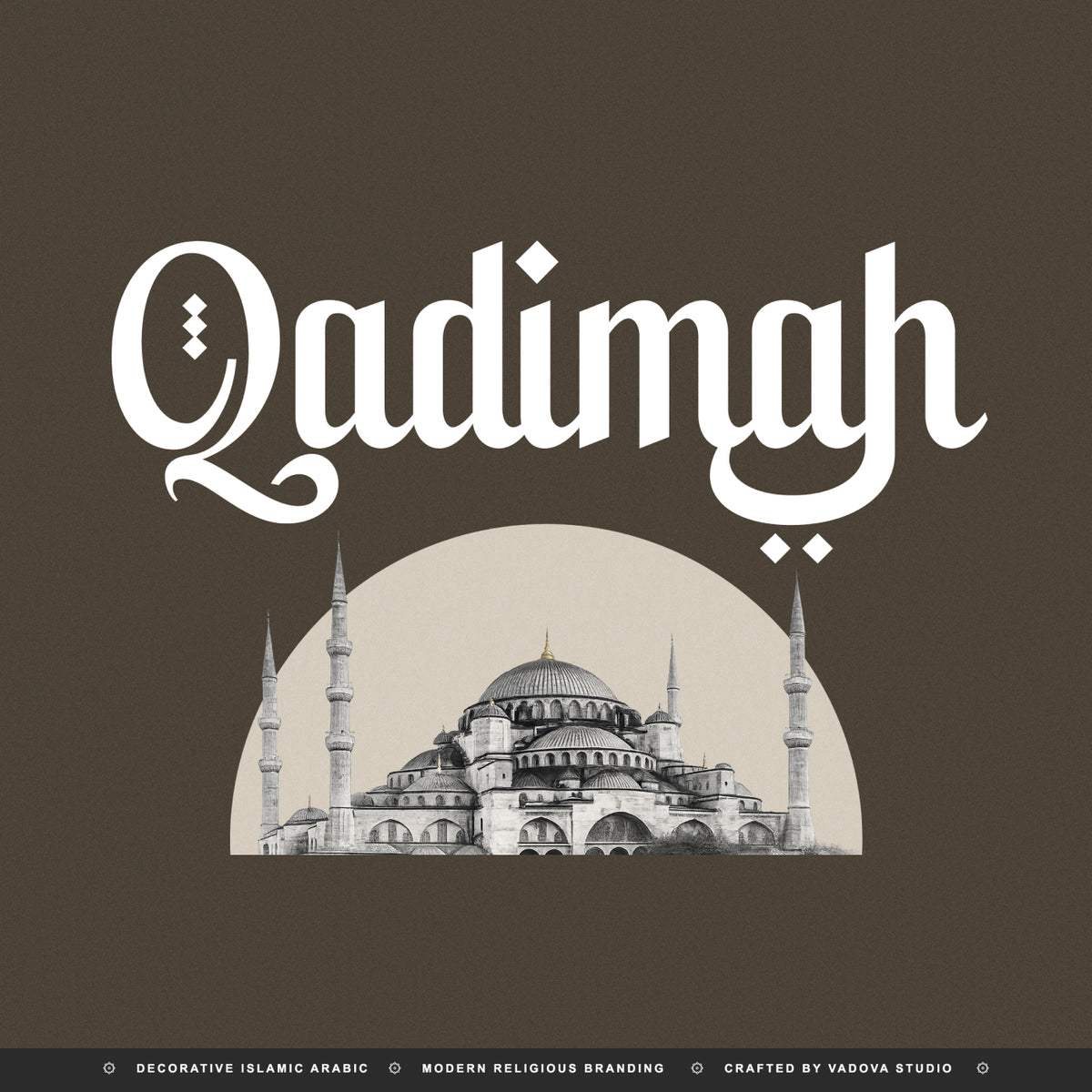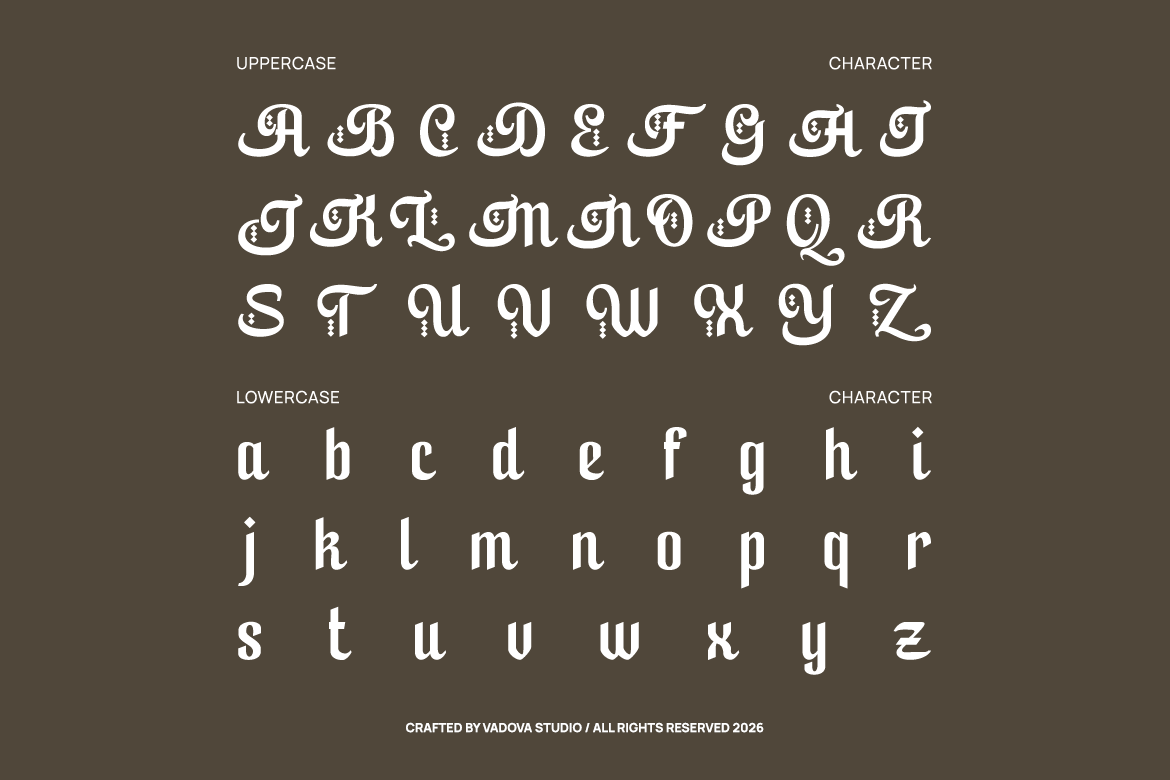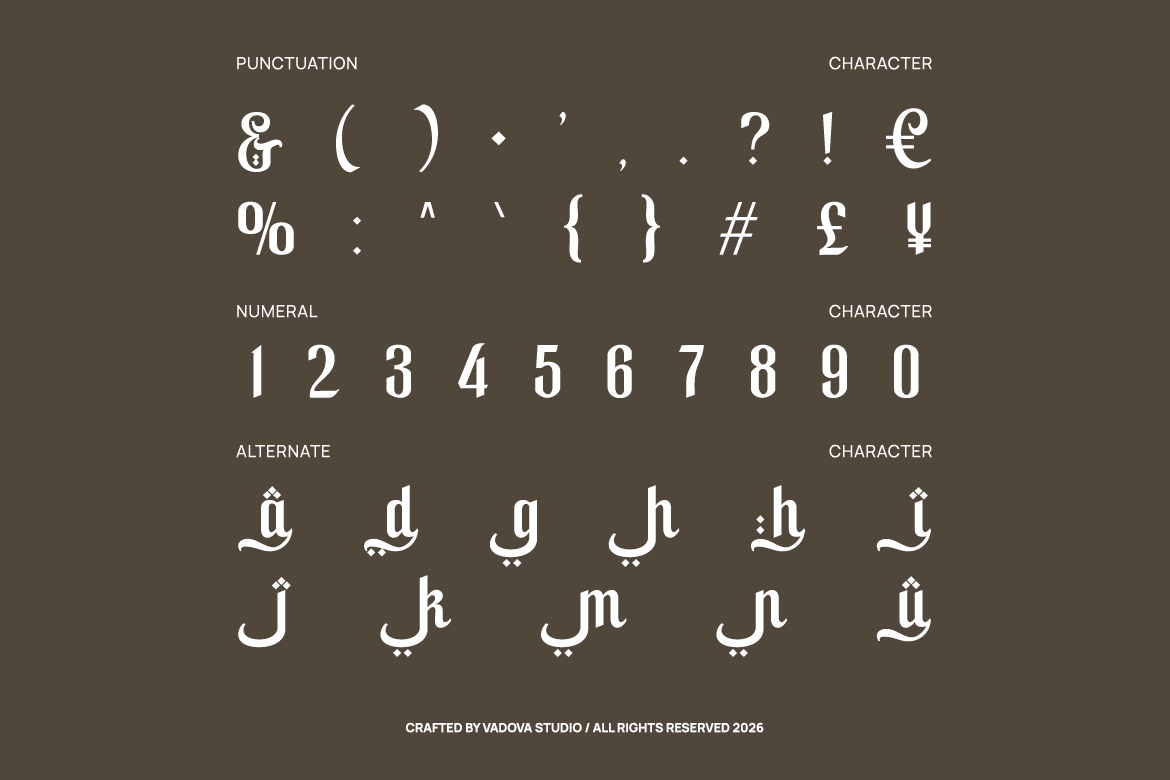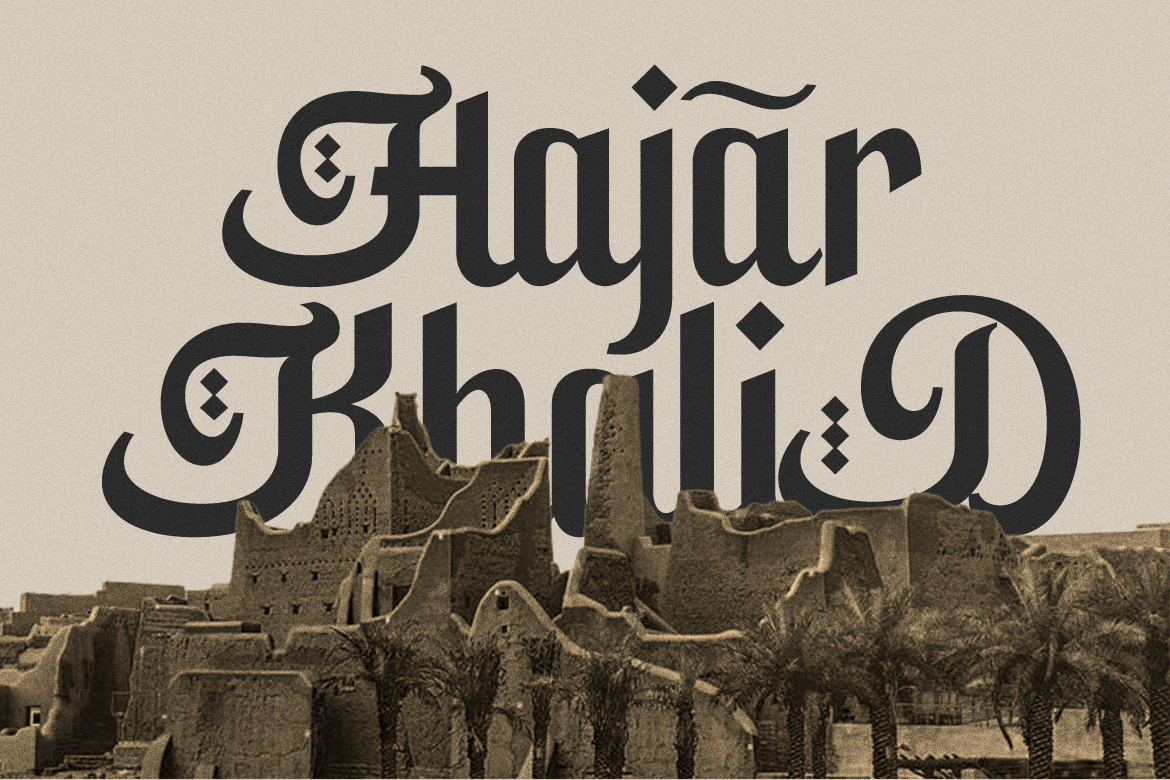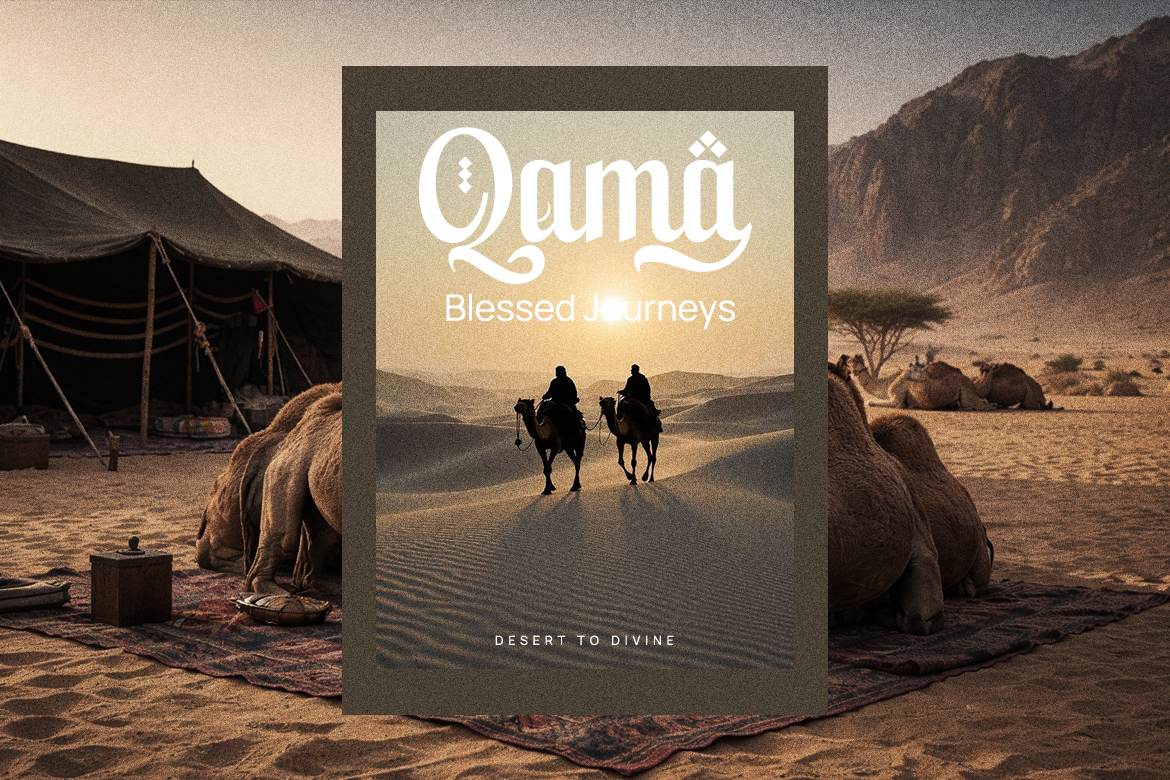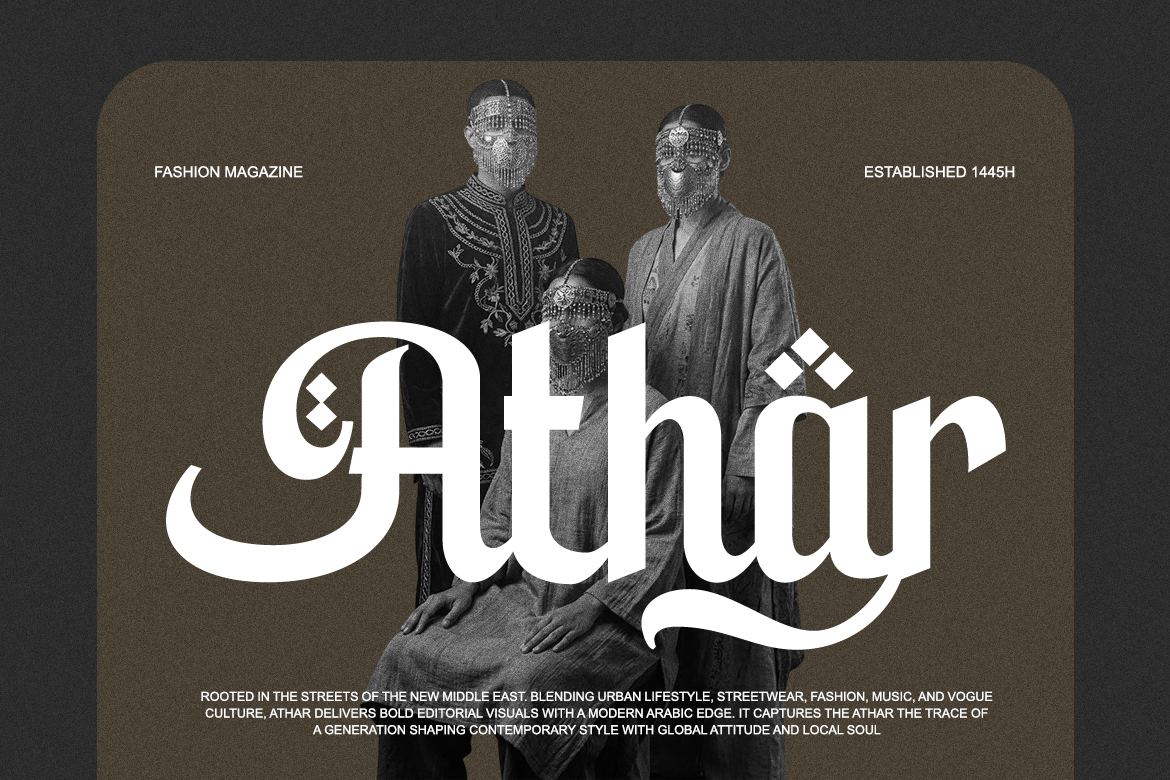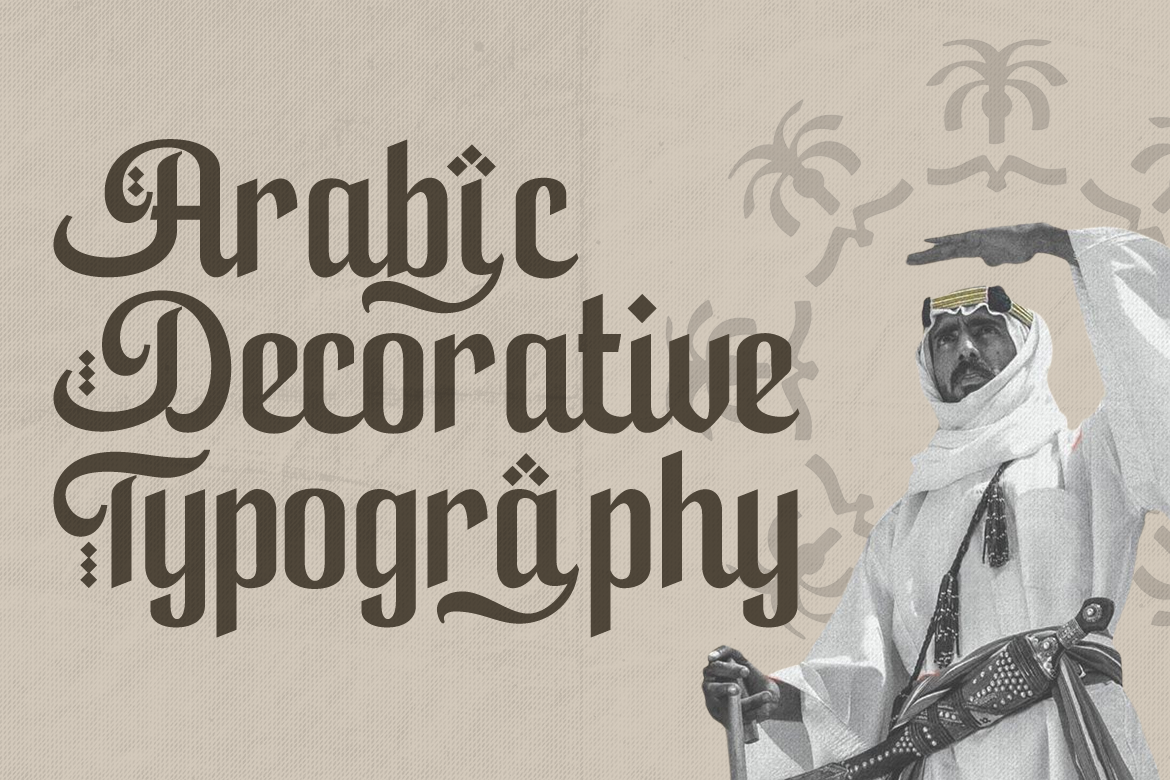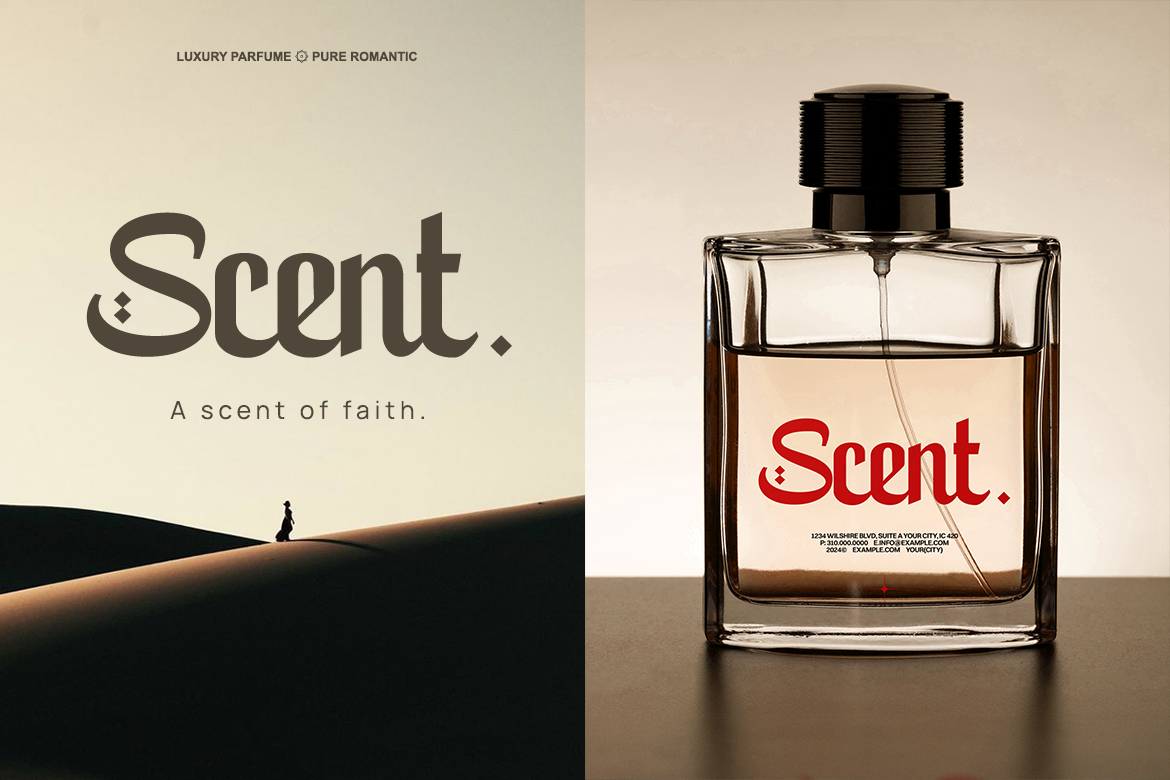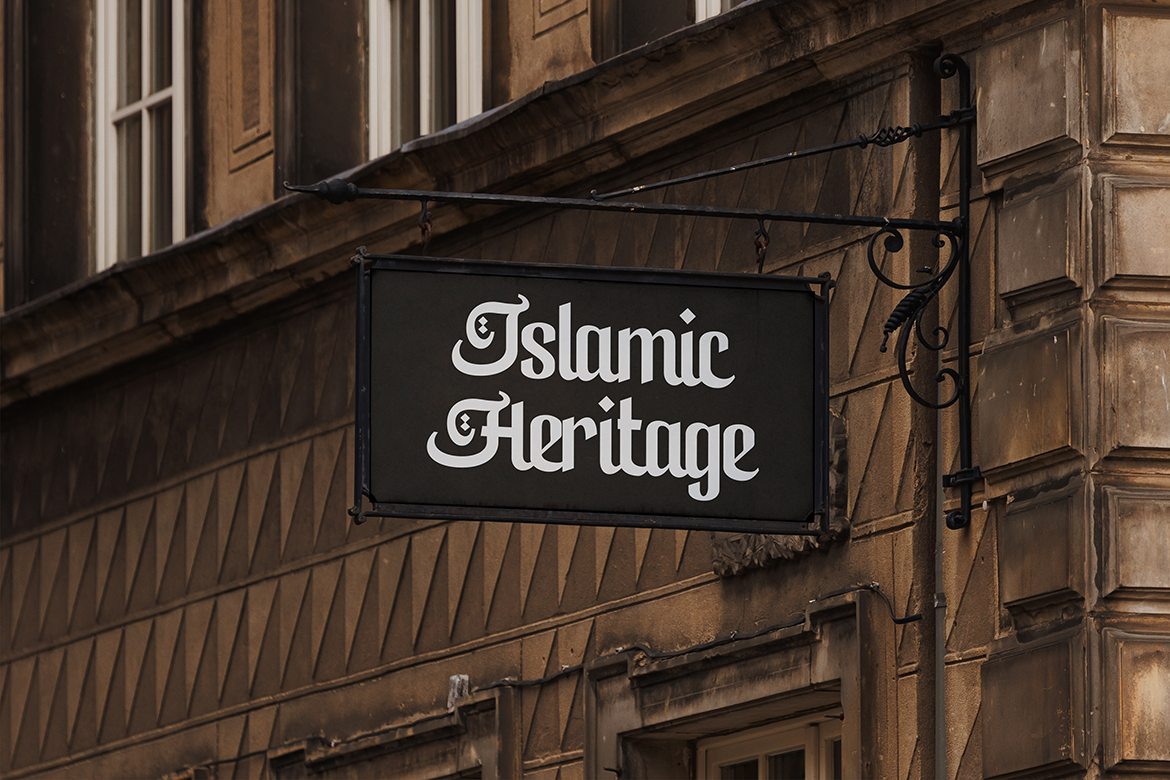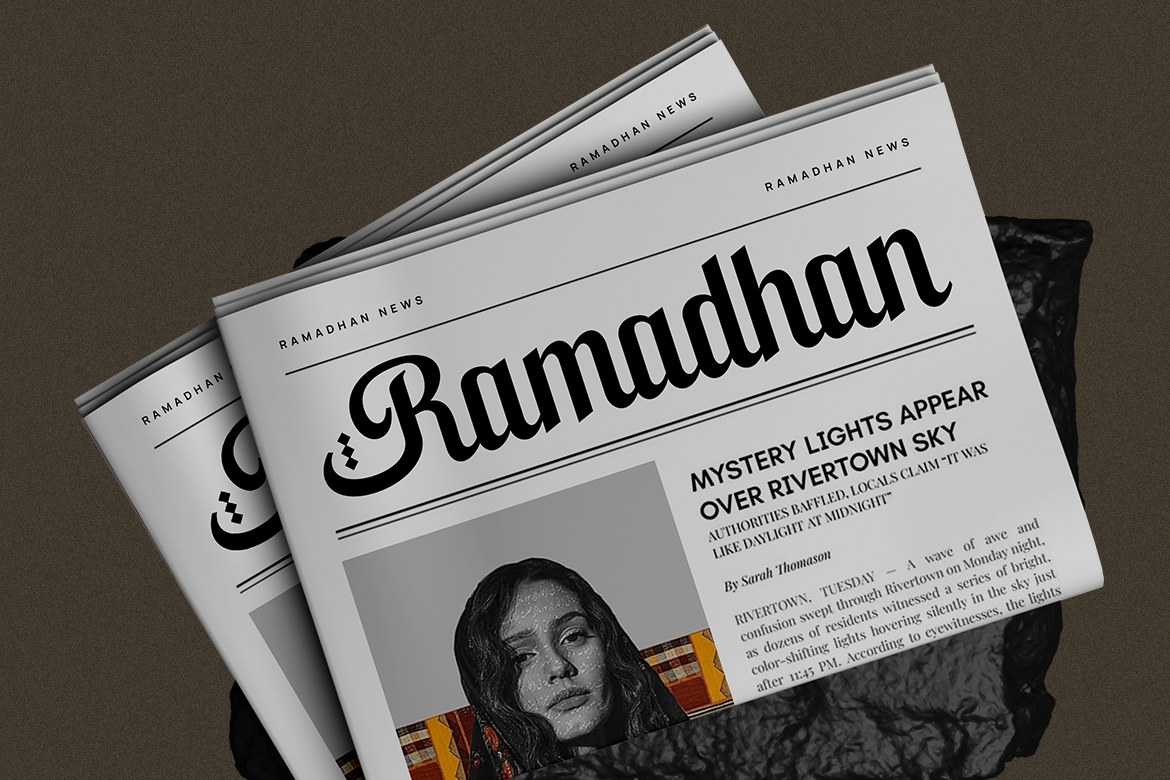
Qadimah Decorative Islamic Arabic Font
Qadimah is a decorative Islamic-inspired display font that blends traditional Arabic ornamental elements with a refined modern serif structure. The letterforms feature elegant curves, teardrop terminals, and diamond-shaped diacritic accents that create a distinctive Middle Eastern character while maintaining readability. Designed for impactful headlines, branding, and editorial compositions, this typeface delivers a graceful yet bold presence across print and digital media.
Relevance and Uses Cases Qadimah is highly relevant for Islamic branding, mosque identities, Ramadan and Eid promotional materials, fashion editorials with Middle Eastern aesthetics, luxury packaging, book covers, and cultural event posters. Its ornamental yet structured form makes it effective for projects that require spiritual nuance combined with modern visual refinement.
Qadimah is a decorative display font combining traditional Arabic ornamental elements with a modern serif structure, featuring curved letterforms, teardrop terminals, and diamond-shaped diacritic accents. It includes uppercase and lowercase characters, numerals, and punctuation, and is available in TTF, OTF, and WOFF formats.